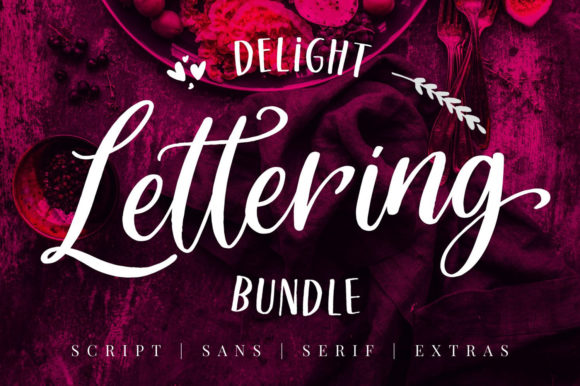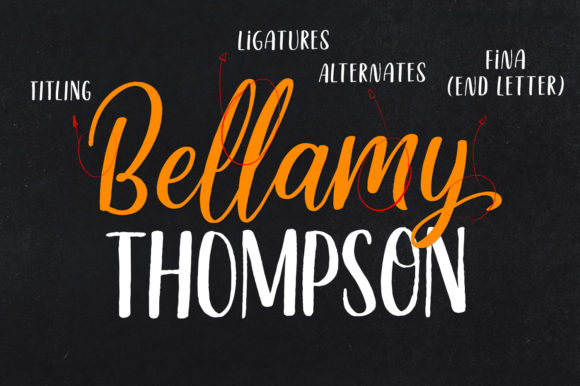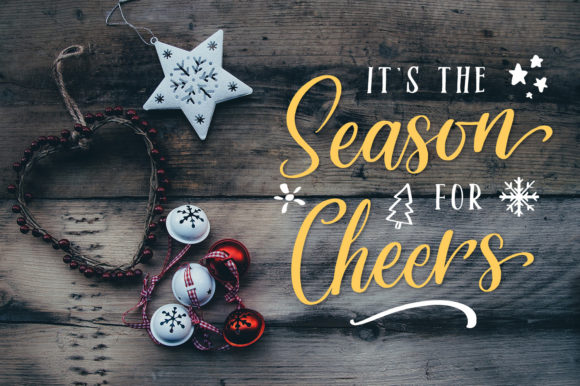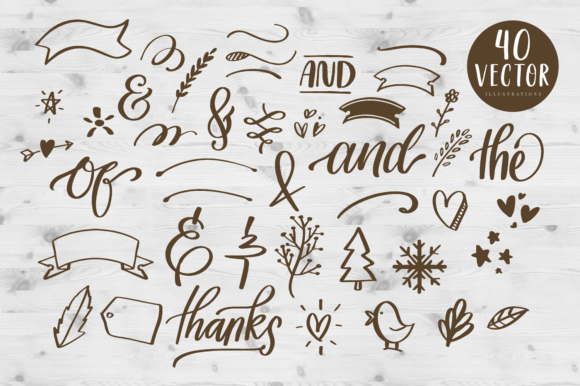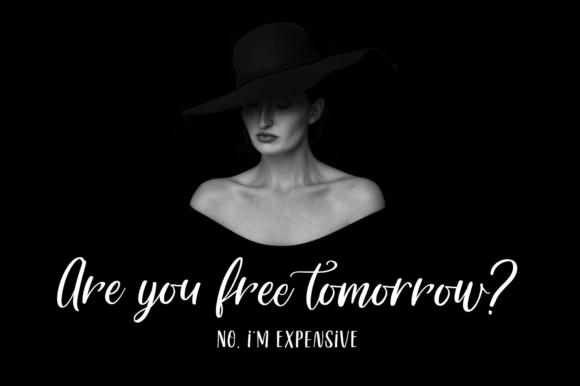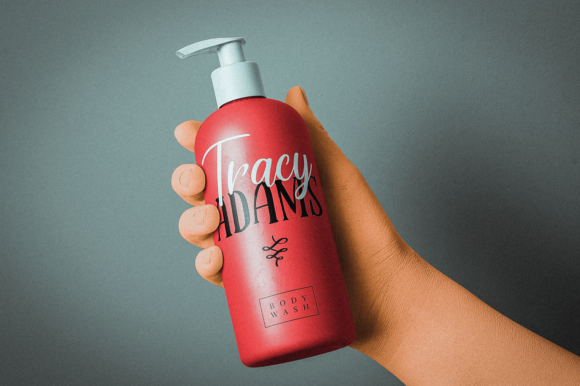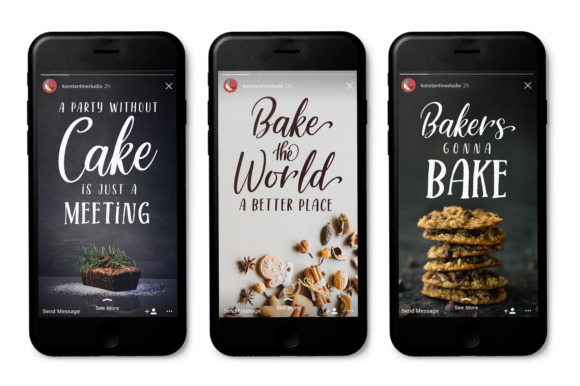
Delight Lettering Font
Please, welcome! Delight Lettering Bundle. A bunch of casual hand lettering brush with modern calligraphy style.
Perfectly fit for casual branding, logo, greeting cards, fancy label, quotes, poster, cosmetic, printed stuff, prepare to explore!